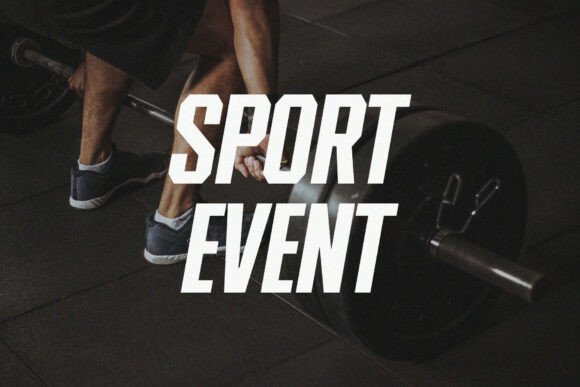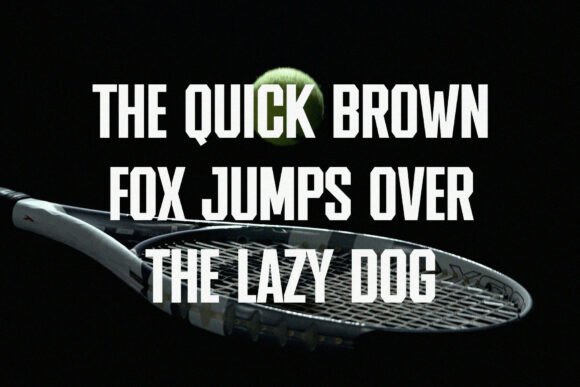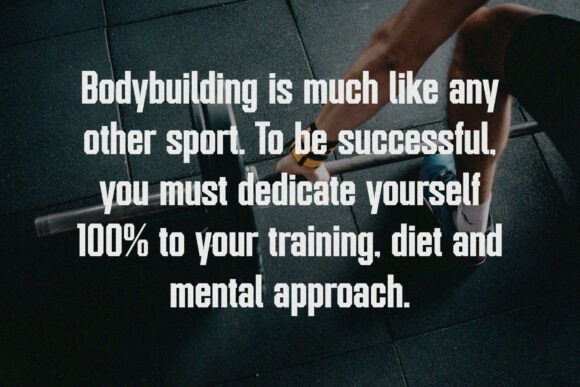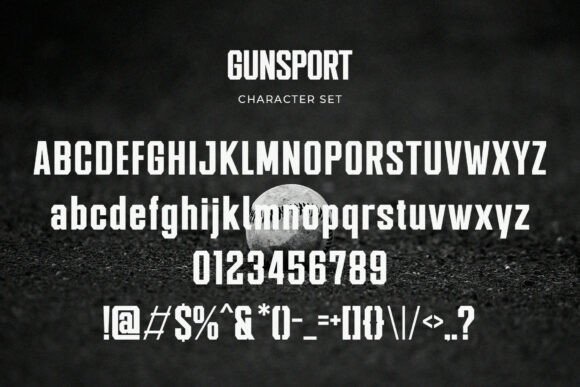
Gunsport Font: Elevate Your Designs with a Bold and Assertive Sans Serif Font
In the world of typography, a font can make or break a design. It’s the foundation upon which the entire visual identity is built. For designers and crafters looking to make a statement, the Gunsport font is an incredible asset to have in your library. This bold and assertive sans serif font is versatile, powerful, and designed to elevate any creation.
The Characteristics of Gunsport Font
Gunsport is a sans serif font, which means it doesn’t have the small lines or flourishes that are typical of serif fonts. This gives it a clean and modern look that’s perfect for designs that require a bold and assertive edge. The font is characterized by its:
- Bold and Assertive Nature: Gunsport is not subtle. It’s a font that demands attention and makes a statement. Its boldness is perfect for headlines, titles, and any design element that needs to stand out.
- Clean and Modern Aesthetic: The sans serif design gives Gunsport a clean and modern look that’s perfect for contemporary designs.
- Versatility: Despite its bold nature, Gunsport is incredibly versatile. It can be used in a variety of contexts, from digital designs to print materials.
Why You Need Gunsport in Your Fonts Library
No matter the topic or industry, Gunsport can be an incredible asset to your fonts library. Here are a few reasons why:
- Elevate Any Creation: Whether you’re working on a logo, a website, a brochure, or any other design project, Gunsport can elevate your creation with its bold and assertive presence.
- Perfect for Headlines and Titles: Gunsport is ideal for headlines and titles, where you want to grab the reader’s attention and make a statement.
- Universal Appeal: The font’s clean and modern aesthetic makes it universally appealing. It can be used in a variety of contexts, from technology and finance to fashion and lifestyle.
How to Use Gunsport Font Effectively
- Pair it with a Serif Font: Pairing Gunsport with a serif font can create a beautiful contrast that adds depth and interest to your design.
- Use it for Headlines and Titles: As mentioned earlier, Gunsport is perfect for headlines and titles. Use it to grab the reader’s attention and make a statement.
In conclusion, Gunsport is a bold and assertive sans serif font that’s perfect for designers and crafters looking to elevate their designs. Its versatility, clean and modern aesthetic, and universal appeal make it an incredible asset to have in your fonts library. Whether you’re working on a logo, a website, or any other design project, Gunsport is sure to make a statement and leave a lasting impression.